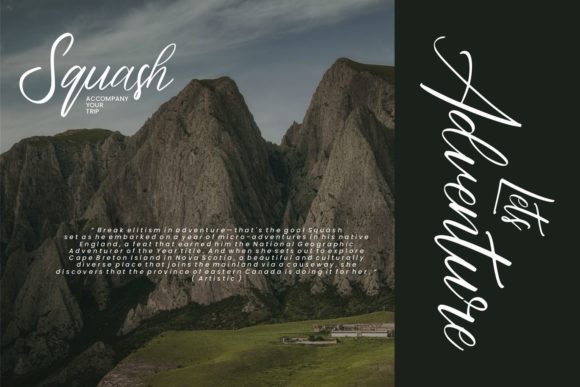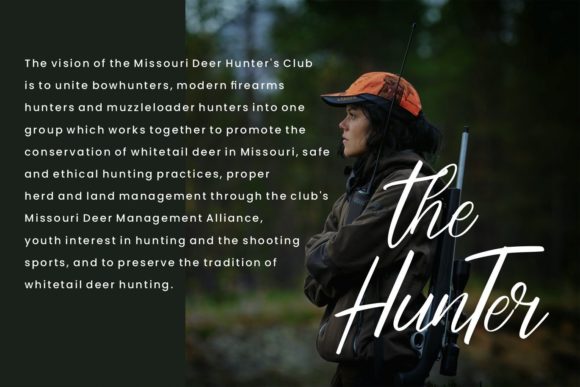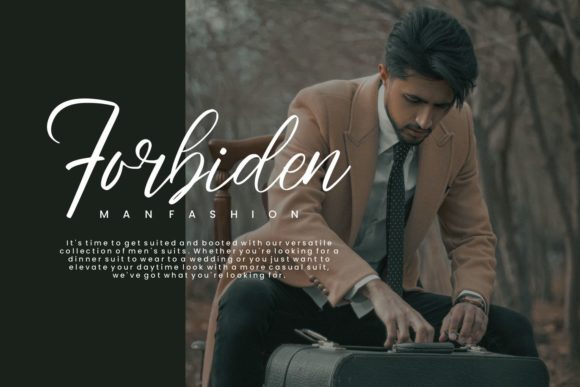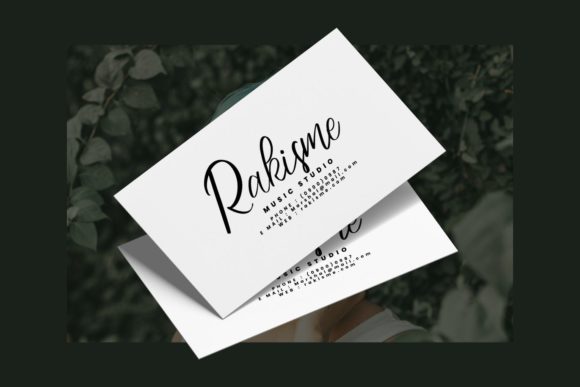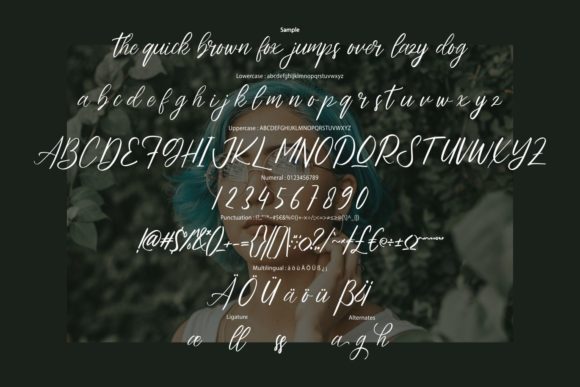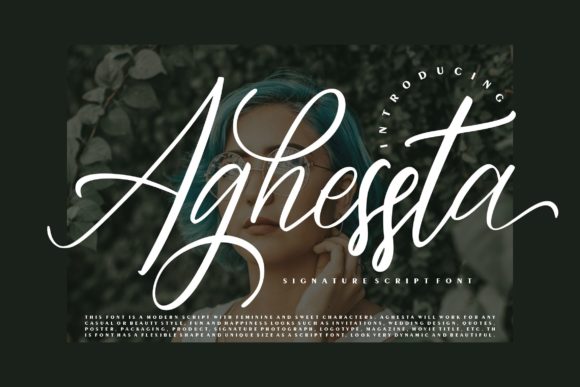
Introducing Aghessta Script Font: Elevate Your Designs with Elegance and Sophistication
Are you tired of using the same old fonts for your design projects? Do you want to add a touch of luxury and sophistication to your creations? Look no further than Aghessta Script Font, a stunning calligraphy typeface that is sure to take your designs to the next level. With its ravishing and fabulous characters that dance along the baseline, Aghessta Script is the perfect choice for designers and crafters who want to add a touch of elegance to their work.
The Beauty of Aghessta Script Font
Aghessta Script Font is a true masterpiece of calligraphy. Its flowing lines and curves create a sense of movement and fluidity, making it perfect for designs that require a touch of sophistication and glamour. The font’s characters are carefully crafted to dance along the baseline, creating a sense of rhythm and harmony that is sure to captivate your audience.
Whether you’re working on a branding project, a wedding invitation, or a packaging design, Aghessta Script Font is the perfect choice. Its versatility and elegance make it suitable for a wide range of applications, from digital designs to print materials.
Features of Aghessta Script Font
So, what makes Aghessta Script Font so special? Here are just a few of its key features:
- Ravishing and fabulous characters: Aghessta Script Font features characters that are truly eye-catching. Its unique and elegant design makes it perfect for designs that require a touch of sophistication.
- Dancing baseline: The font’s characters are carefully crafted to dance along the baseline, creating a sense of movement and fluidity.
- Luxury spark: Aghessta Script Font is designed to add a touch of luxury to your designs. Its elegant and sophisticated design makes it perfect for high-end branding and packaging designs.
- Versatile: Aghessta Script Font is suitable for a wide range of applications, from digital designs to print materials.
Why Designers and Crafters Love Aghessta Script Font
Aghessta Script Font is a favorite among designers and crafters for several reasons:
- Elegance and sophistication: Aghessta Script Font adds a touch of elegance and sophistication to any design project.
- Unique and eye-catching: The font’s unique and eye-catching design makes it perfect for designs that require a touch of glamour.
In conclusion, Aghessta Script Font is a stunning calligraphy typeface that is sure to elevate your designs to the next level. Its ravishing and fabulous characters, dancing baseline, and luxury spark make it perfect for designers and crafters who want to add a touch of elegance and sophistication to their work. With its versatility and ease of use, Aghessta Script Font is a must-have for any designer or crafter looking to create beautiful and eye-catching designs.